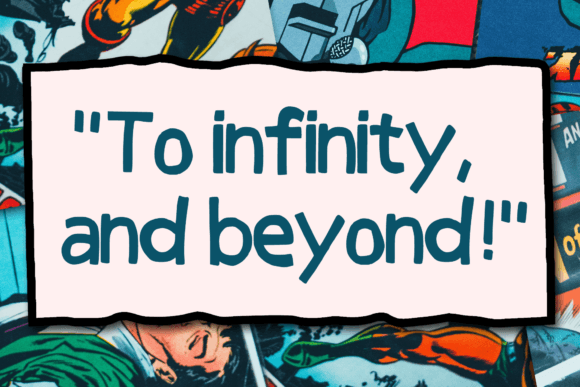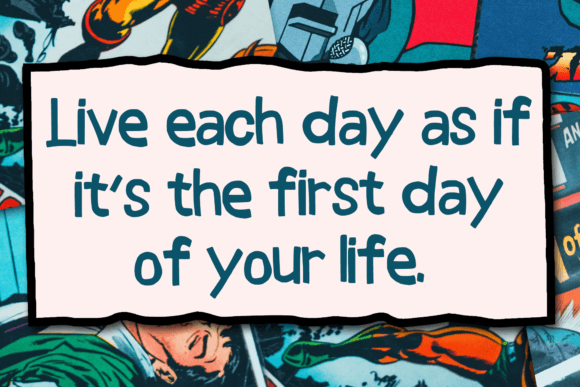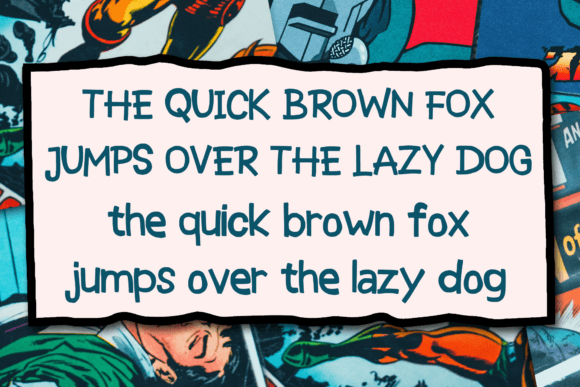
Introduction to Marvelous Comic Font
Marvelous Comic is a cool comic-style display font.
You can use it for anything ranging from t-shirts, kids’ book designs, and greeting cards to stickers and posters, or anything that needs a casual touch Fall in love with its incredibly versatile style, and use it to create lovely designs.
Key Features of Marvelous Comic Font
Why Choose Marvelous Comic Font?
Marvelous Comic Font offers exceptional quality and versatility, making it a valuable addition to your design toolkit. Whether you’re creating for personal projects or commercial use, Marvelous Comic Font delivers professional results.